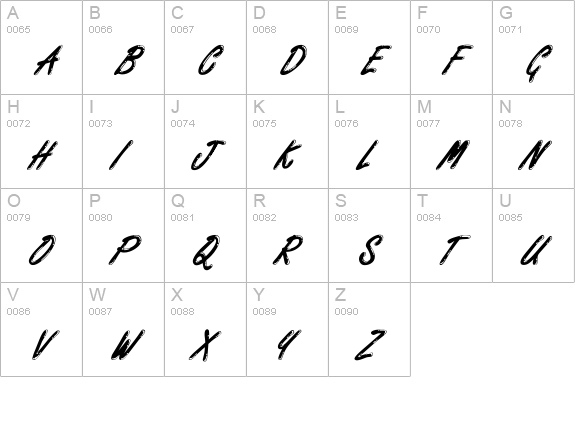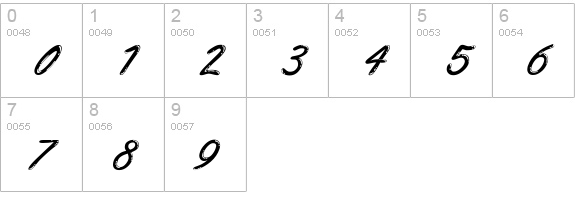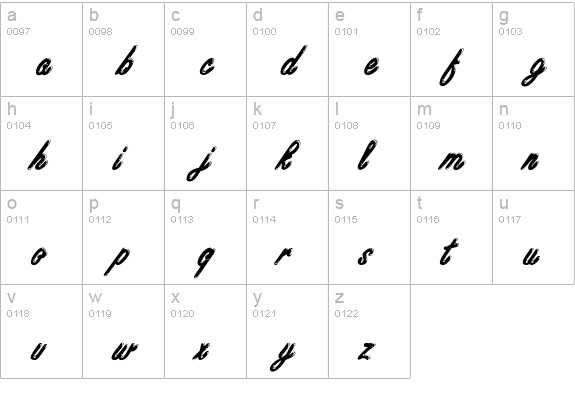
Encino Italic is a distinctive, italic variant in the Encino typeface family \xE2\x80\x94 well suited to design and typography projects.
Encino Italic is a stylish and elegant font that exudes a sense of sophistication and creativity. Its slanted design adds a touch of modernity to any project, making it perfect for use in branding, advertising, and editorial designs. The italicized characters flow smoothly, creating a dynamic visual impact that captures the viewer's attention. What sets Encino Italic apart is that it is not only visually stunning but also free to download. You can easily access this beautiful font at FontsMarket.com, where you can explore its versatility and add a touch of flair to your design projects. Whether you're working on a website, poster, logo, or any other creative endeavor, Encino Italic is sure to elevate your work with its unique charm and style. Download it today and unleash your creativity with this exceptional font.